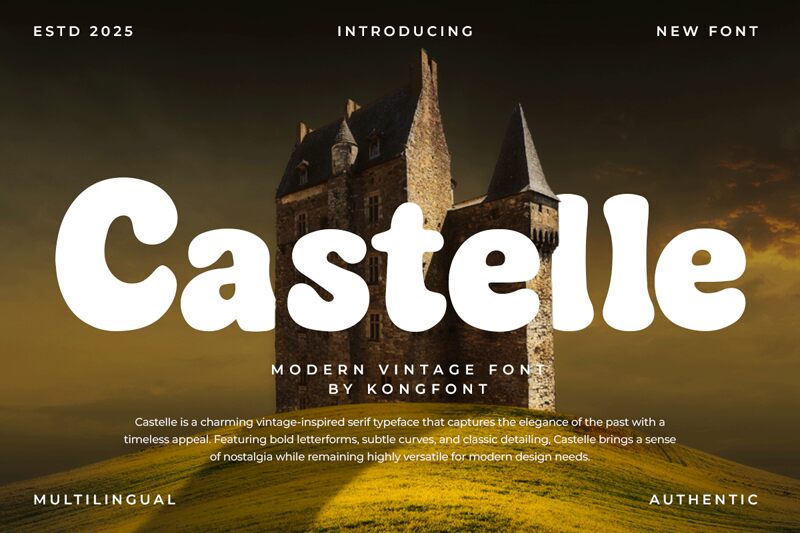
Castelle font designed by Kong Font is a bold vintage-inspired typeface with a modern twist. Mixing classic nostalgia with a touch of the contemporary, this groovy font is distinct, approachable, and friendly, perfect for designing projects with an outstanding visual impact. Its unique character makes it super versatile, leaving it up to the designer to explore with the endless possibilities.
Stationery designs like professional business cards, branded letterheads, envelopes, stamps, and sticker designs are some of the simplest ways to use Castelle. With its superb qualities, proposal covers, posters, and coupons are some other areas where the peculiar font will perform best.